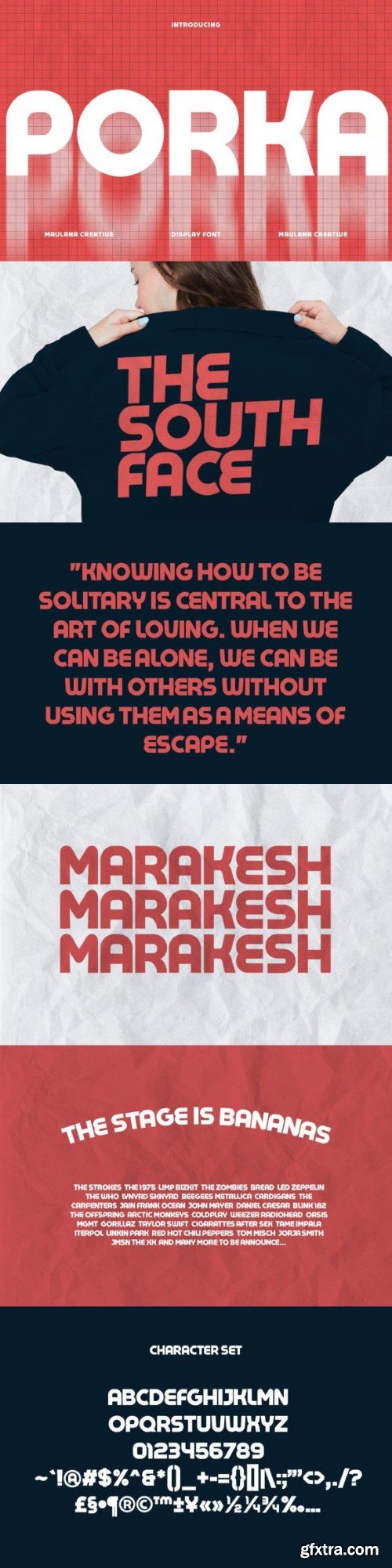
Porka Font
Porka is an all-caps Geometric sans display font. Bold stroke, fun character with a bit of ligatures and stylistic. To give you an extra creative work. Porka font support multilingual more than 100+ language. This font is good for logo design, Social media, Movie Titles, Books Titles, a short text even a long text letter and good for your secondary text font with script or serif. Make a stunning work with Porka font.